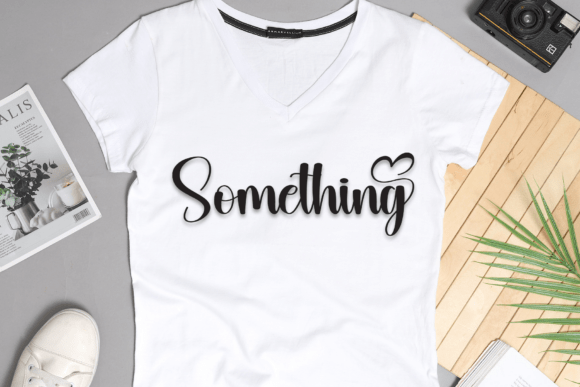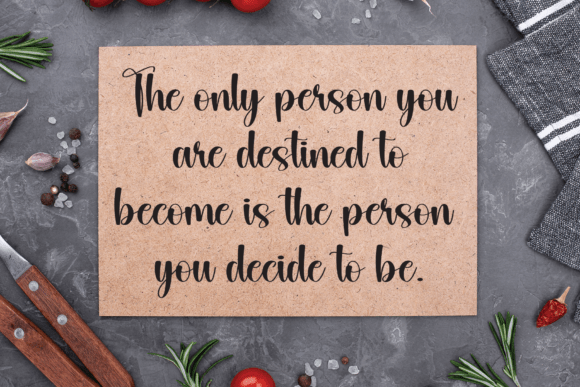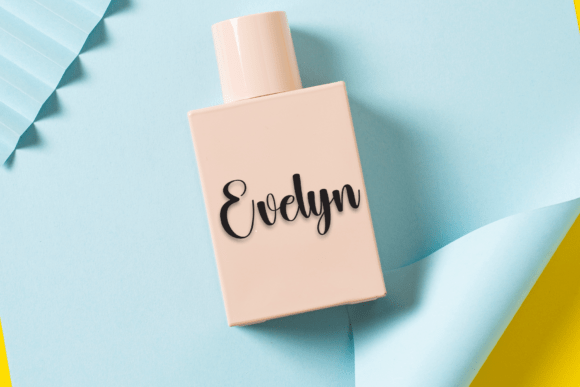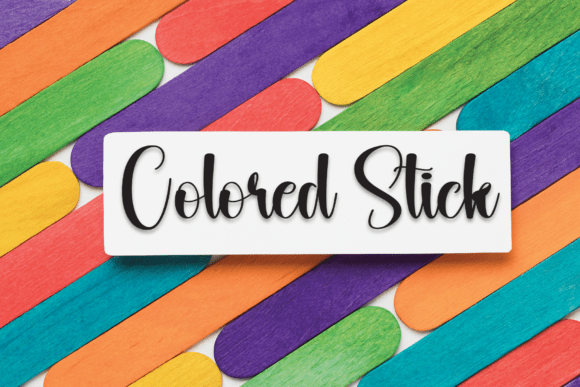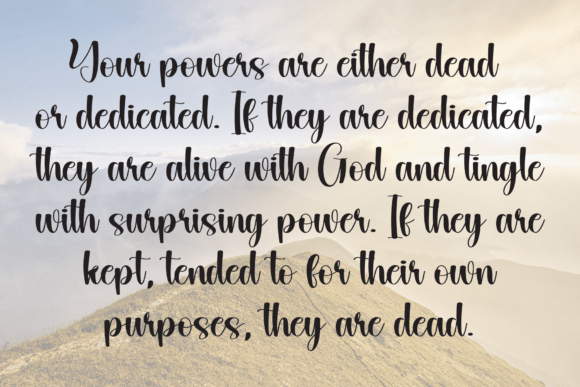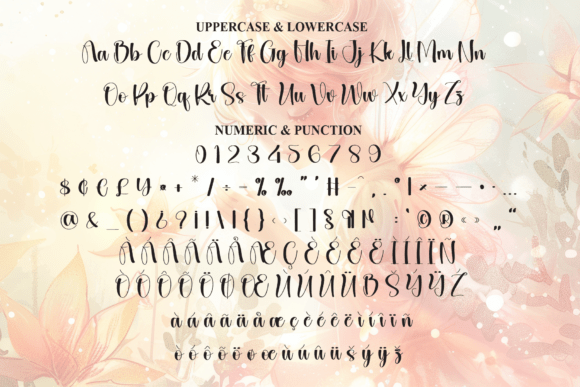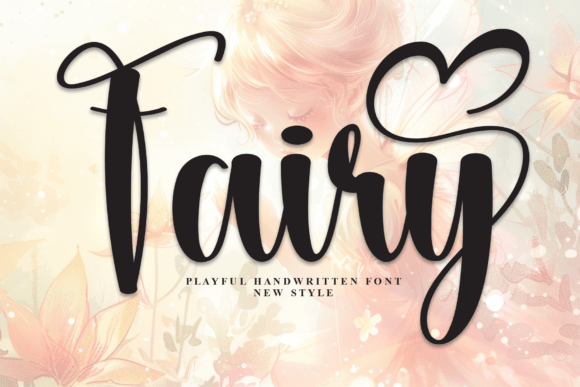
Fairy Font: Adding a Touch of Whimsy and Charm to Your Designs
In the world of typography, fonts play a crucial role in conveying the tone and personality of a brand or design. If you’re looking for a font that bursts with personality and charm, look no further than the Fairy Font. This display handwritten font is designed to capture the warmth of real handwriting with bold, eye-catching strokes, making it perfect for designers and crafters who want to add a personal touch to their work.
What is Fairy Font?
Fairy Font is a display handwritten font that is designed to stand out while maintaining a natural flow. It’s a unique and expressive font that brings authenticity and flair to any design. With its bold, eye-catching strokes, Fairy Font is perfect for logos, social media graphics, posters, and anything that calls for a personal, expressive touch.
Key Features of Fairy Font
• Handwritten with love: Fairy Font is crafted with love and care to mimic the warmth and personality of real handwriting.
• Bold and eye-catching: The font features bold, eye-catching strokes that are sure to grab attention.
• Natural flow: Despite its bold nature, Fairy Font maintains a natural flow that makes it easy to read and understand.
• Perfect for creative projects: Fairy Font is ideal for designers and crafters who want to add a personal touch to their work.
Uses of Fairy Font
Fairy Font is a versatile font that can be used in a variety of design projects, including:
• Logos: Use Fairy Font to create a unique and memorable logo for your brand.
• Social media graphics: Add a personal touch to your social media graphics with Fairy Font.
• Posters: Create eye-catching posters with Fairy Font that are sure to grab attention.
• Branding: Use Fairy Font to add a touch of whimsy and charm to your branding materials.
Benefits of Using Fairy Font
There are many benefits to using Fairy Font in your design projects, including:
• Unique and expressive: Fairy Font adds a unique and expressive touch to your designs.
• Easily readable: Despite its bold nature, Fairy Font is easily readable, making it perfect for a variety of design projects.
• Customizable: Fairy Font can be customized to fit your brand’s personality and style.
• Time-saving: With Fairy Font, you can create professional-looking designs in no time.
Tips for Using Fairy Font
Here are some tips for using Fairy Font in your design projects:
• Use it sparingly: Fairy Font is a bold font, so use it sparingly to avoid overwhelming your design.
• Pair it with other fonts: Pair Fairy Font with other fonts to create a unique and interesting contrast.
• Experiment with colors: Experiment with different colors to find the perfect match for your design.
• Have fun: Most importantly, have fun with Fairy Font and enjoy the creative process!
In conclusion, Fairy Font is a unique and expressive font that adds a touch of whimsy and charm to any design project. With its bold, eye-catching strokes and natural flow, it’s perfect for designers and crafters who want to add a personal touch to their work. Whether you’re crafting a heartfelt quote or branding a creative product, Fairy Font brings authenticity and flair to your design. So why not give it a try and see the magic it can bring to your designs?